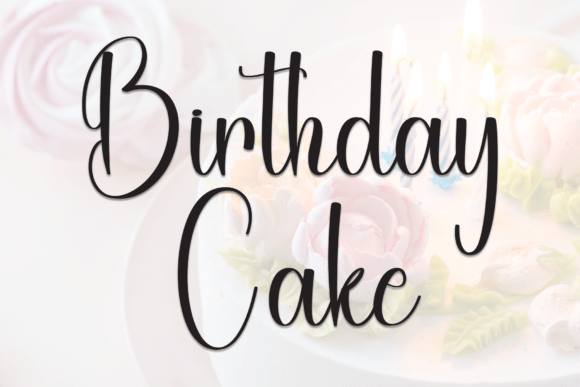
When Words Become Art: The Magic of Birthday Cake Font
Have you ever stared at a blank canvas, waiting for the perfect words to flow onto the page? That’s exactly what happened to me last year when I was planning my sister’s birthday party. I wanted to create an invitation that would set the tone for a fun and elegant celebration. As I browsed through fonts, one caught my eye – Birthday Cake Font. Its fluid brush strokes and dynamic curves seemed to dance on the page, and I knew I had to use it.
Birthday Cake Font is a stylish script font that exudes artistic flair and contemporary elegance, perfect for adding a creative touch to any design. From logos to social media graphics, this font is ideal for designers looking to make a statement. With its natural flow and vibrant character, Birthday Cake Font delivers both visual impact and versatility.
Whether you’re a seasoned designer or a creative enthusiast, Birthday Cake Font is a valuable addition to your toolkit. Its expressive letterforms and modern twist make it a go-to choice for any project that requires a touch of sophistication and whimsy.
Birthday Cake Font Key Features
- Font Style: A playful, cursive font with a celebratory feel, ideal for birthday invitations, party decorations, and other festive designs.
- Unique Characteristics: Features decorative flourishes, swashes, and other design elements that evoke a sense of celebration and joy.
Birthday Cake Font Review
I recently had the chance to work with the “Birthday Cake Font” and I have to say it’s a fun, playful typeface. ✨ One thing that immediately caught my attention was its whimsical feel, perfect for adding a celebratory touch to any design project. The font is ideal for birthday invitations, party decorations, and other festive events.
Here are some of the things that work well with this font:
- Unique and creative design that stands out
- Perfect for adding a celebratory feel to designs
- Works well in digital and print formats
- Easy to read, despite its playful nature
- Not suitable for formal or professional designs
- May be too loud or overwhelming for simple designs
- Limited font sizes and styles available
Overall, I think the “Birthday Cake Font” is a great addition to any designer’s toolkit. While it may not be suitable for every project, it’s a fun and creative option for adding a celebratory touch. Just be sure to use it thoughtfully and in context.
The Birthday Cake Font is ideal for:
- Creating invitations and party decorations.
- Designing birthday cards and gift tags.
- Adding a playful touch to social media graphics.
For the best results, use the Birthday Cake Font in conjunction with bold colors and playful graphics.
Alternatives to Birthday Cake Font for Designers
Creamistry
Creamistry is a distressed font that mimics the look of handwritten icing on a cake. It’s perfect for designs that require a playful, whimsical feel. When to use: Party invitations, dessert menus, and other festive designs.
Comparison to Birthday Cake Font: Creamistry has a more distressed and uneven look, giving it a more authentic feel. It’s ideal for designers who want to add a touch of handmade charm to their designs.
Whipped Cream
Whipped Cream is a script font that’s reminiscent of swirly icing on a cake. It’s great for designs that require a touch of elegance and sophistication. When to use: Wedding invitations, gourmet food labels, and other high-end designs.
Comparison to Birthday Cake Font: Whipped Cream has a more refined and polished look, making it suitable for designs that require a touch of class. It’s ideal for designers who want to add a sophisticated feel to their designs without sacrificing the whimsy of a script font.